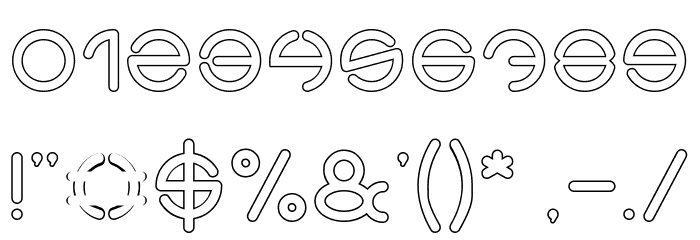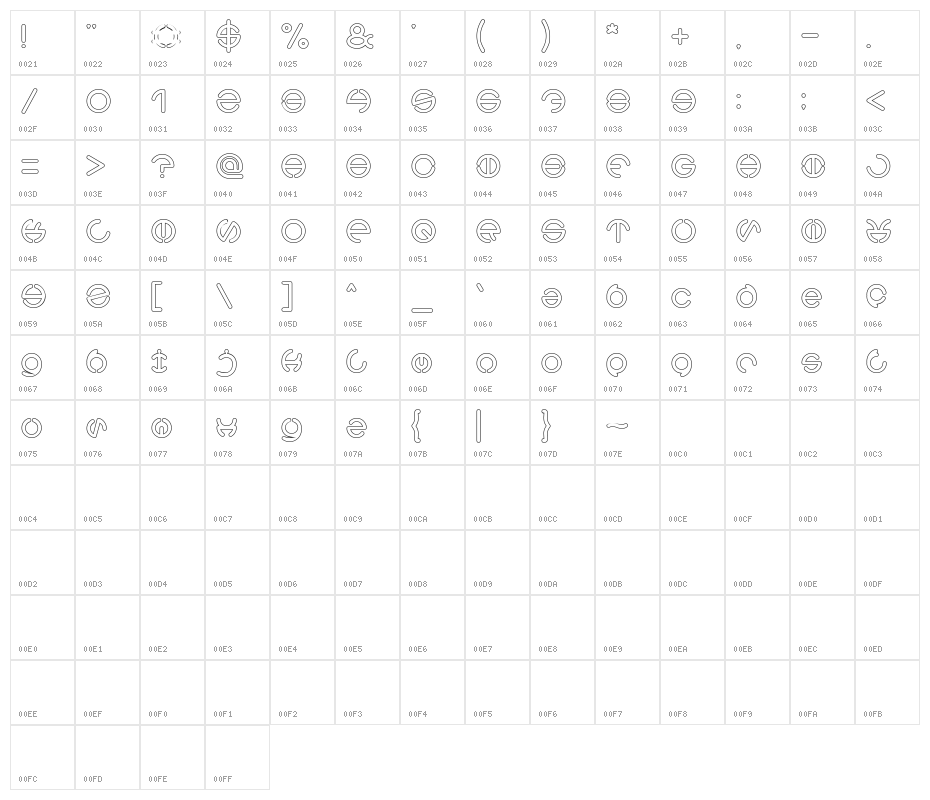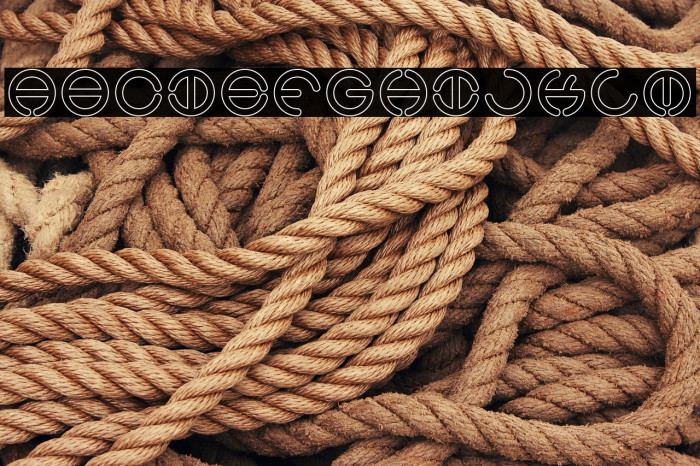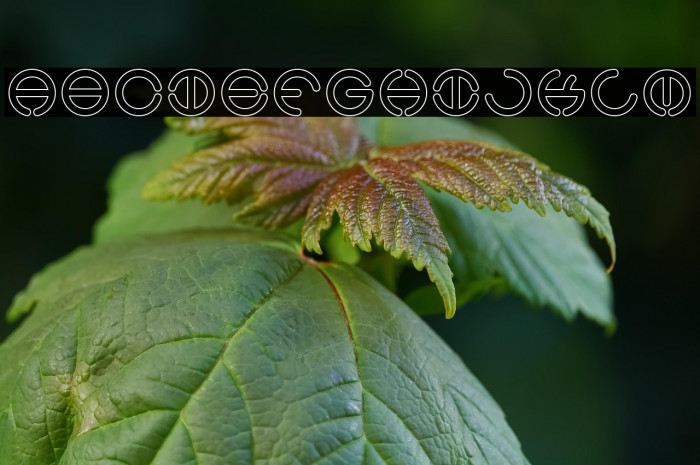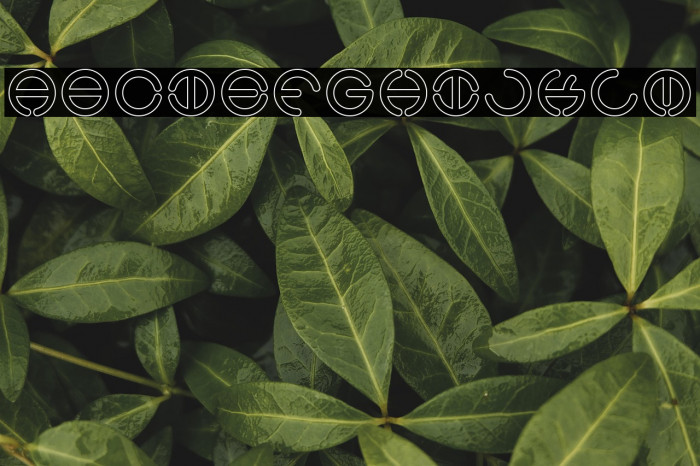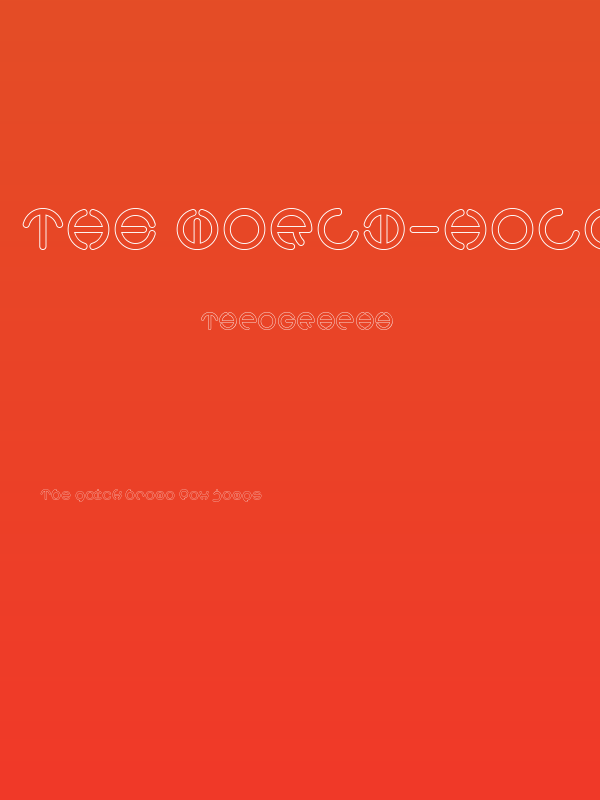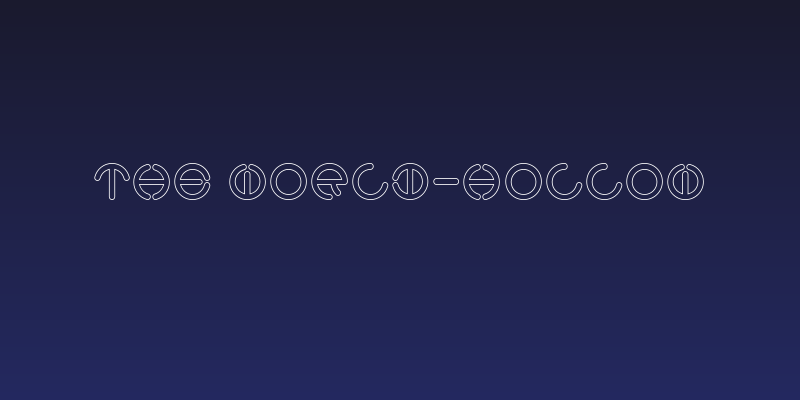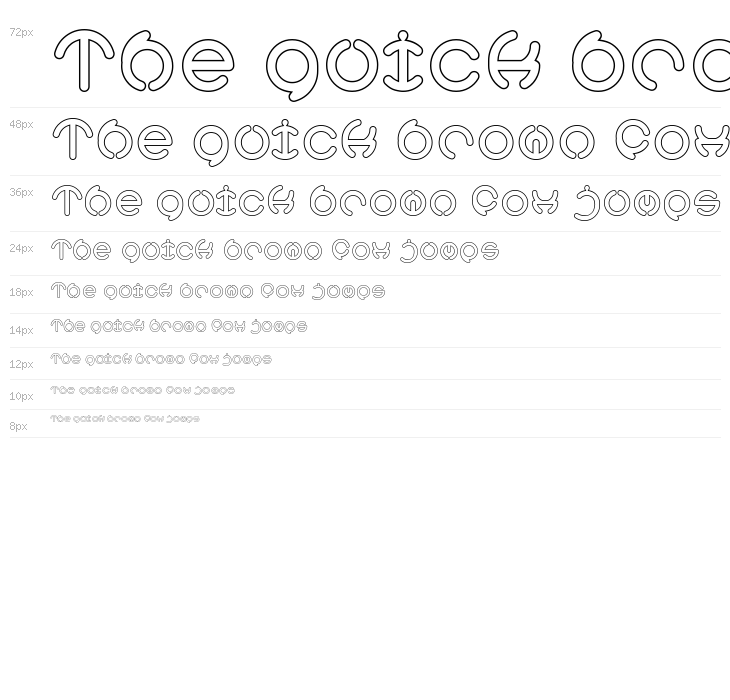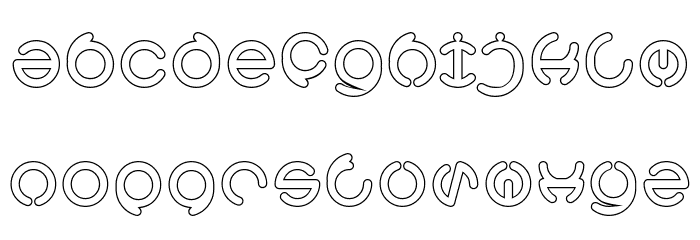
THE WORLD-Hollow Font
THE WORLD-Hollow Description
This font features a unique hollow design with a futuristic and geometric aesthetic. Each character is crafted with a continuous, unbroken line that forms the outer shape, creating a sense of openness and modernity. The letters are rounded and symmetrical, with a consistent stroke width that gives them a clean and polished look. The font's distinct style is both playful and sophisticated, making it suitable for creative and contemporary projects. Its hollow nature allows for interesting visual effects when layered over images or colored backgrounds.